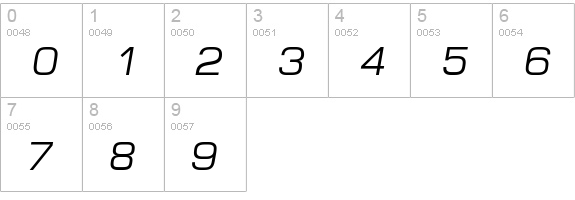
Minima SSi Italic is a distinctive, italic variant in the Minima typeface family \xE2\x80\x94 well suited to design and typography projects.
Discover the captivating beauty of Minima SSi Italic font, a sleek and modern typeface designed to make your designs stand out. With its elegant curves and stylish slant, this font exudes sophistication and charm. Perfect for a wide range of design projects, from branding to editorial design, Minima SSi Italic will add a touch of class to your work. What's more, Minima SSi Italic is completely free to download at FontsMarket.com, making it easily accessible for all your creative endeavors. Embrace the versatility and elegance of this font today and elevate your designs to the next level.